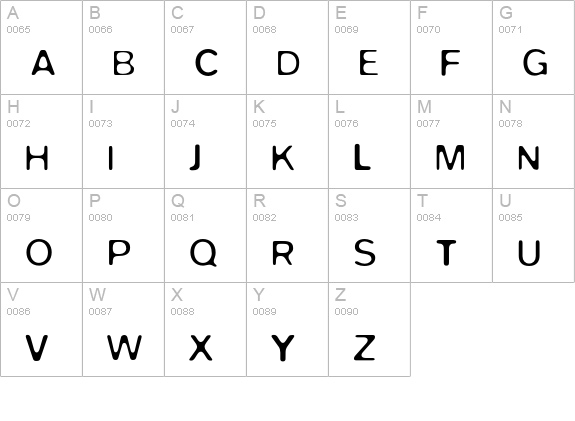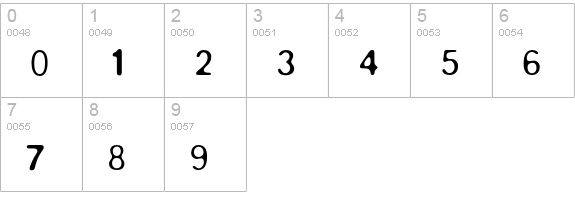
Blurvh1 Font Details
Introducing Blurvh1 font, a stunning and versatile typeface perfect for adding a touch of elegance to your designs. With its bold and unique style, Blurvh1 is sure to make a statement and capture the attention of your audience. This font combines classic sophistication with a modern twist, making it ideal for a wide range of projects. The best part? Blurvh1 is available for free download at FontsMarket.com, making it easily accessible for all designers and creatives looking to enhance their work with a touch of flair. Whether you're working on branding, advertising, invitations, or any other creative project, Blurvh1 is a must-have font that will elevate your designs to the next level. Download it today and let your creativity shine with Blurvh1 font!